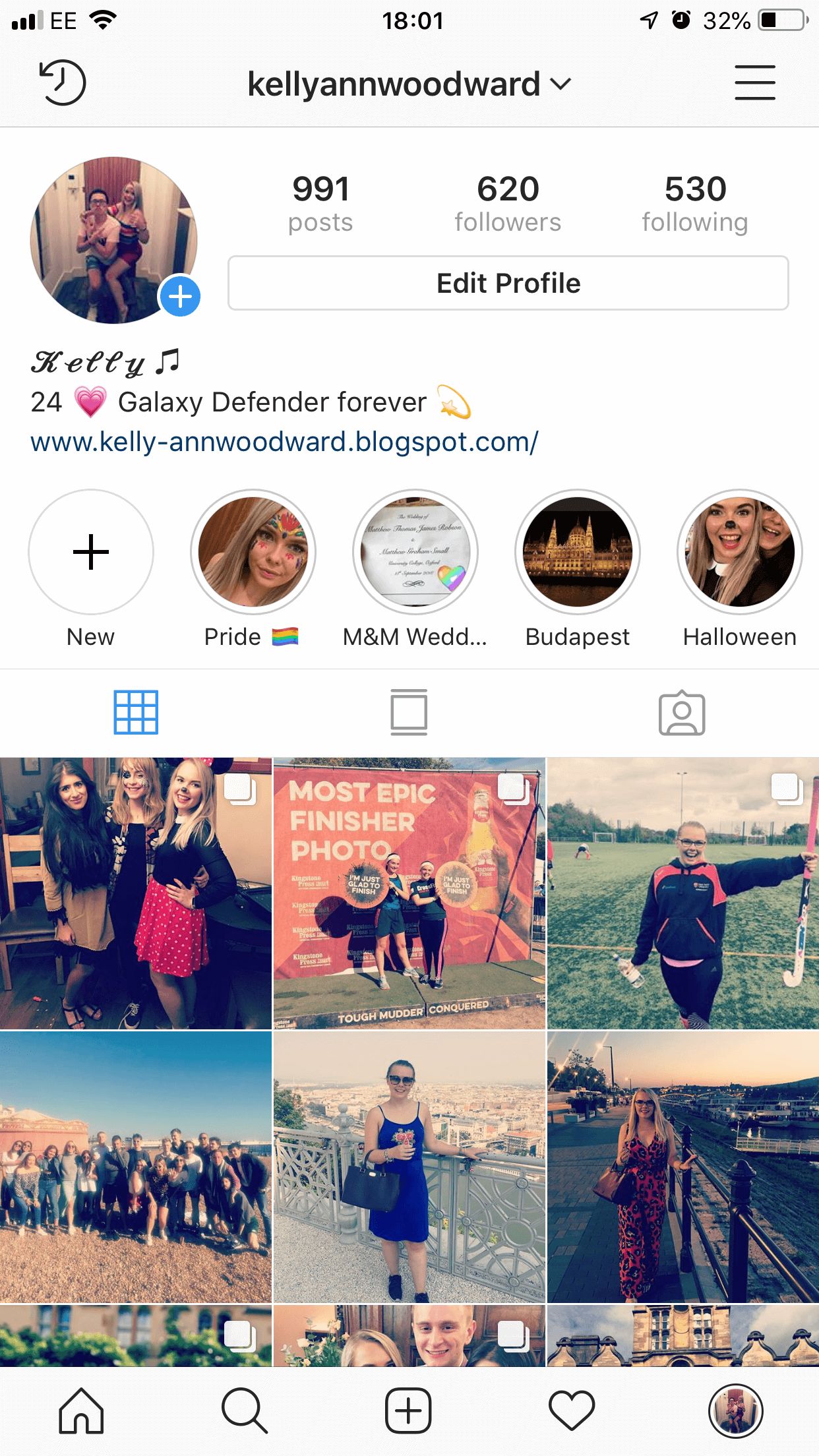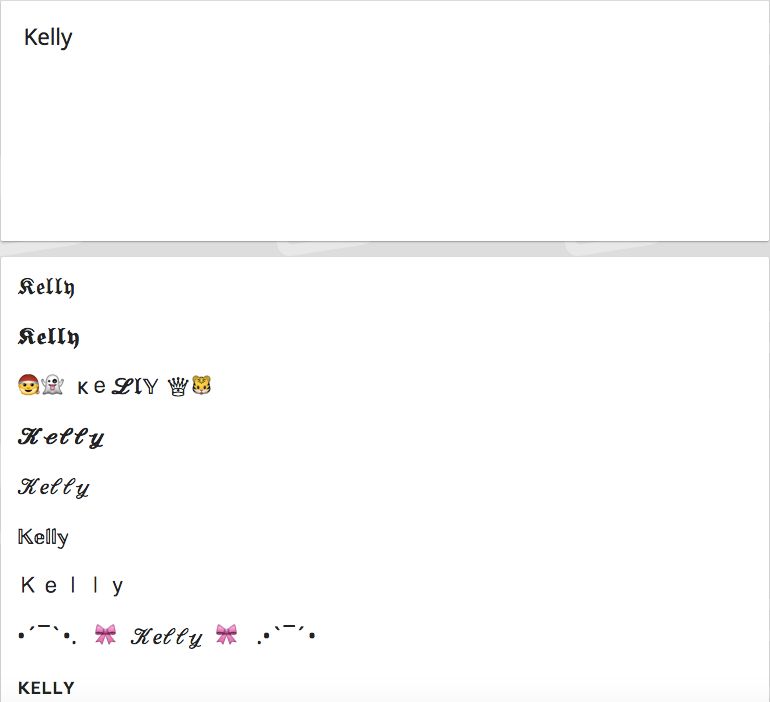
How to change the font on your Instagram bio
It’s so easy to do and looks beaut
Everyone's trying to make their Instagram look different to stand out. Some people are going with a 90s vibe using Huji and others are using a VHS filter to make their videos look vintage. You also have those super aesthetic people who edit their photos within an inch of their life. But what if you could make your Instagram different without editing any photos, and instead stand out by changing your Instagram bio font?
The words you choose just aren't enough anymore in the Instagram world, you have to think outside the box, like changing the font of your Instagram bio. But how do you change the font of your Instagram bio? And why isn't there an option on Instagram to do so?
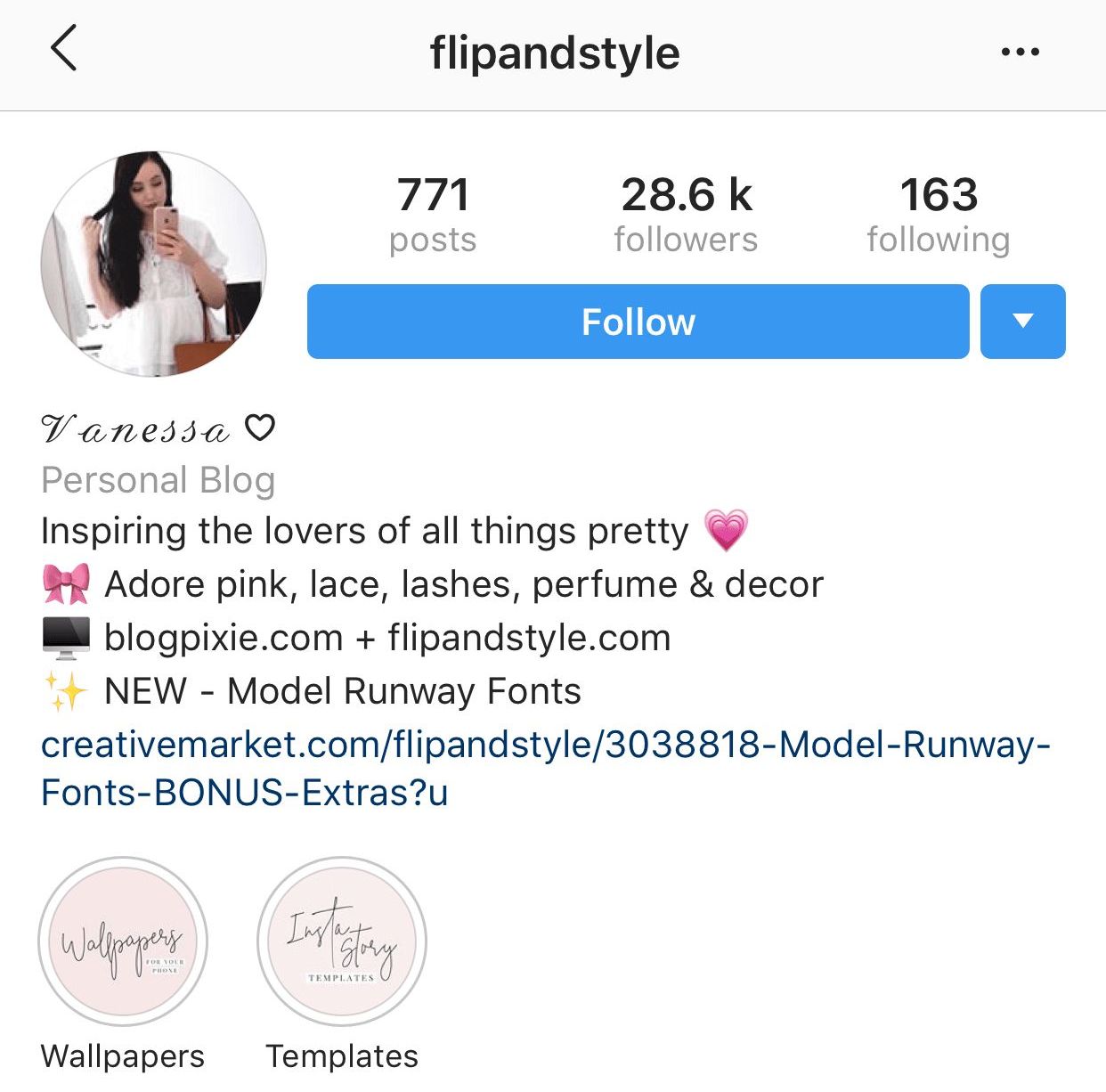
Firstly, find an Instagram font generator
Simply Google search "Instagram font generator", and click any that come up in search, like this one.
Type whatever word you want a different font for to include in your bio.
Then, it will then come up with numerous different fonts for you to choose from, like below:
A selection of different fonts to choose from for your Instagram bio
There's around 130 different fonts to choose from. Some look like old-fashioned cursive hand writing and others look like a typewriter. Whatever you had in mind you can probably find. Others have emojis already attached to them and fancy boarders.
Not only can you choose a different font but you can also choose custom emojis and symbols by going to a website like this. Dani Dyer uses Instagram fonts in her bio, with two little hearts around her name – how cutesie.
Dani Dyer uses custom fonts and emojis in her bio
Copy and paste the font into your bio
Pick your favourite and copy and paste it into your Instagram bio so it will look something like this:
Creating a font for your bio changes how your Insta profile looks
You can do this to any section of your Instagram and make your profile different to anyone else's – it's super simple.
Can I change the font of my Instagram bio in Instagram?
Unfortunately, no you can't. They created font options for Instagram stories but are yet to give you the option of changing your font in your bio directly through Instagram.